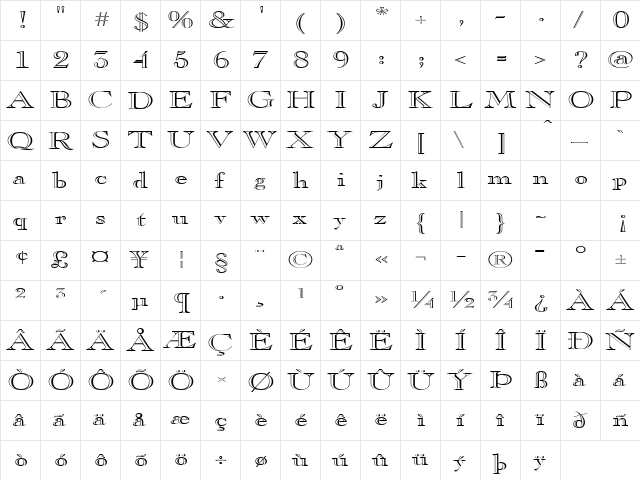
GravureExtended Regular
Design Context for GravureExtended Typeface
GravureExtended offers clean, dependable letterforms without strong stylistic allegiance, making it a practical choice for designers who need flexibility.